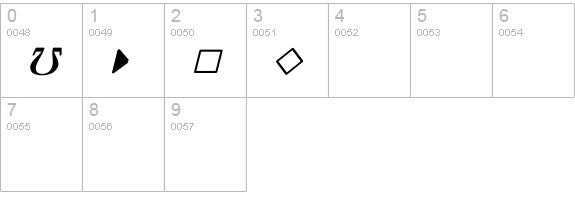
LaTeX_Symbol BOLD Font Details
LaTeX_Symbol BOLD is a strong, high-contrast variant in the LaTeX_Symbol typeface family \xE2\x80\x94 well suited to headlines, attention-grabbing titles, and strong calls-to-action.
The LaTeX_Symbol BOLD font is a versatile and eye-catching typeface that is perfect for adding emphasis and impact to your designs. With its bold and distinctive letterforms, this font is sure to grab attention and make a statement. The beauty of the LaTeX_Symbol BOLD font lies in its ability to effortlessly combine elegance with a contemporary edge. It is ideal for a wide range of projects, from professional documents to creative designs. Whether you are creating a logo, designing a poster, or crafting a website, this font will add a touch of sophistication and style. One of the standout features of the LaTeX_Symbol BOLD font is its versatility. It can be used in both large and small sizes, ensuring that your message is clear and legible no matter the context. The strong and bold strokes of each letter make for a visually striking display, while the refined details add a touch of refinement. And the best part? The LaTeX_Symbol BOLD font is available for free download at FontsMarket.com. This means that you can access this exceptional font without any cost, making it an excellent choice for designers on a budget. Simply head to FontsMarket.com, download the font, and start using it in your projects right away. In summary, the LaTeX_Symbol BOLD font is a must-have for anyone looking to add a bold and stylish touch to their designs. Its versatility, legibility, and free availability at FontsMarket.com make it an excellent choice for both professional and personal projects. Download it today and let your creativity soar.